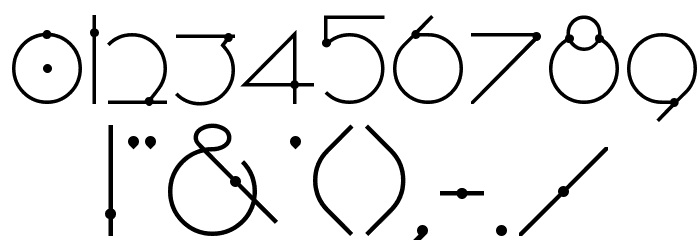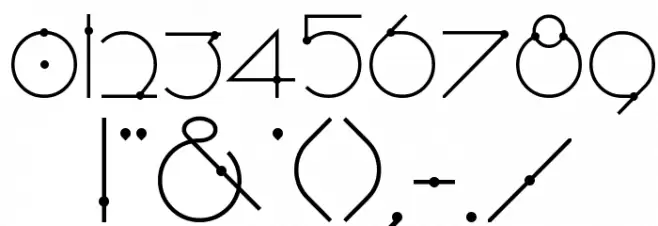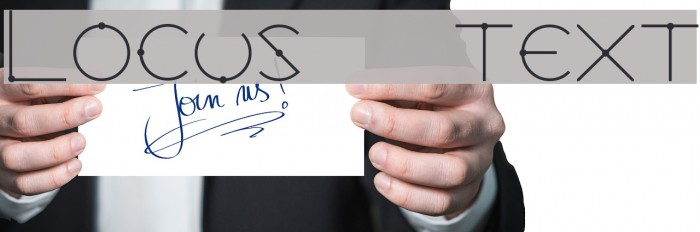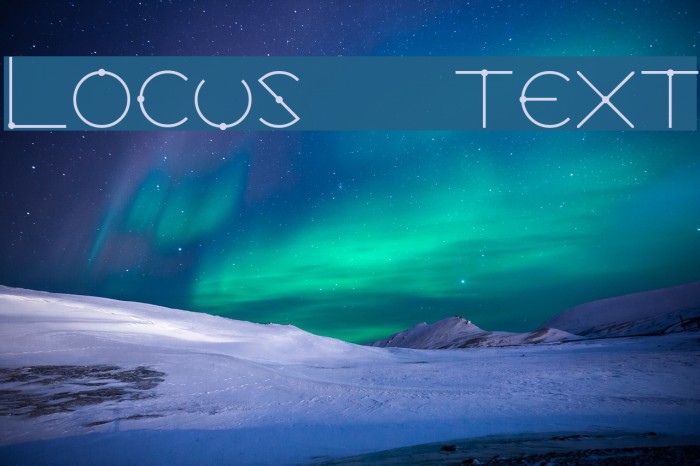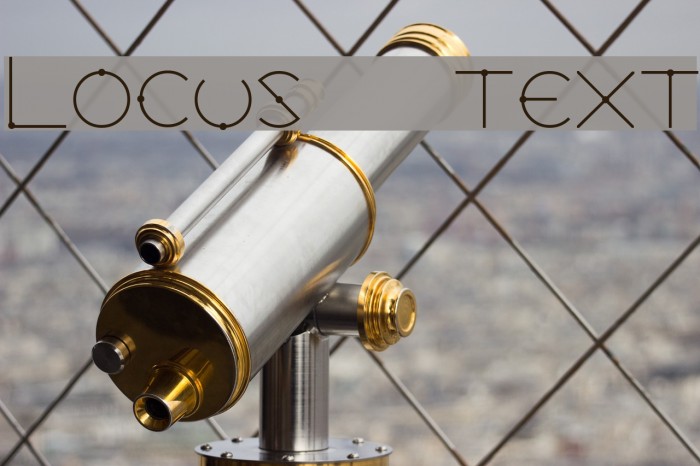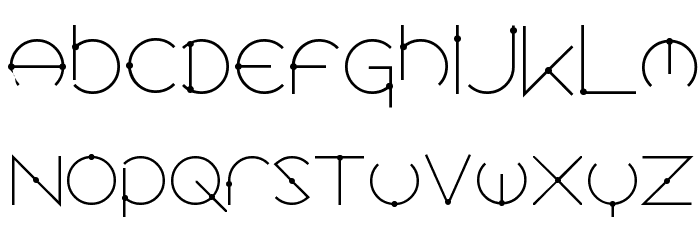
Locus Text Font
Locus Text Description
This font exhibits a unique and futuristic design, characterized by its geometric and minimalistic approach. Each character is constructed with a combination of straight lines and circular elements, creating a sense of precision and modernity. The font maintains a consistent stroke width throughout, contributing to its clean and uncluttered appearance. The inclusion of dots at certain junctions adds an intriguing visual element, enhancing its distinctiveness. This style is particularly effective in conveying a sense of innovation and technology, making it suitable for contemporary design projects.
A futuristic, geometric font with consistent stroke width and unique dot elements from Uncategorized fonts.
- Proposed Projects: Ideal for tech branding, modern art installations, digital interfaces, and innovative product packaging.
- Use Case: Logos, Headlines, Digital Interfaces